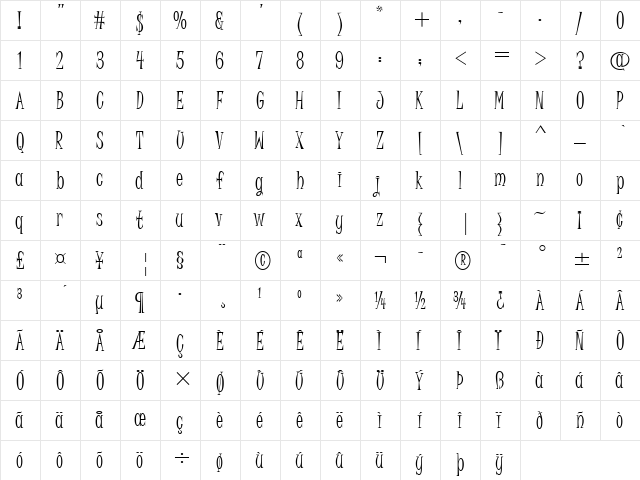
Juice ITC Alt Light
Design Context for Juice ITC Alt Typeface
Juice ITC Alt offers clean, dependable letterforms without strong stylistic allegiance, making it a practical choice for designers who need flexibility. The delicate stroke weight brings airiness and refinement to layouts.